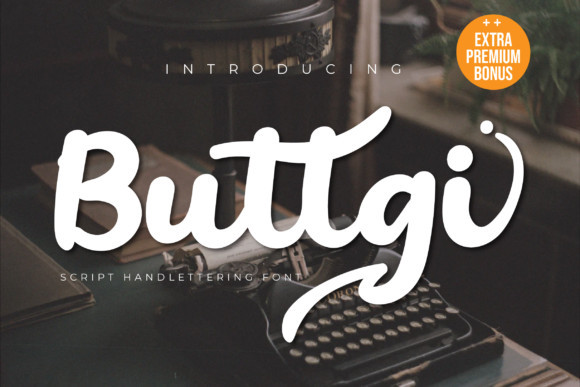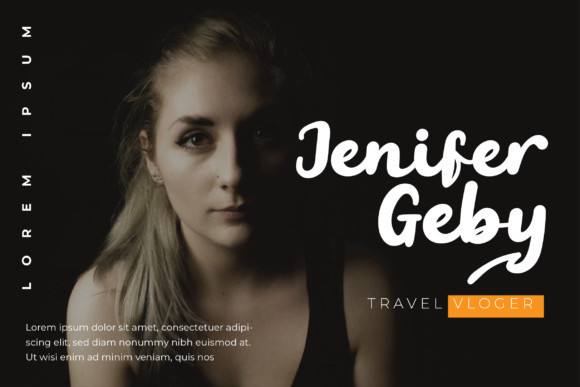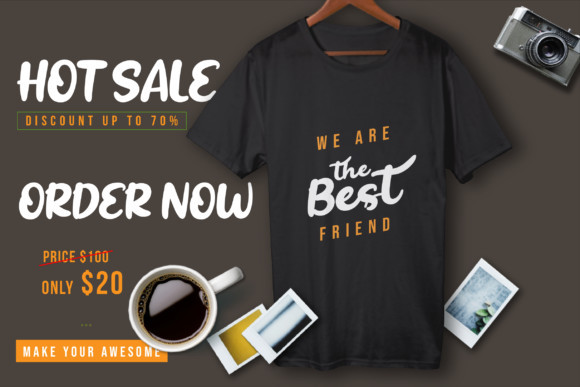
Buttgi Font
Buttgi is a flowing, thick lettered handwritten font, created with original hand-drawn strokes. Defined by a relaxed and elegant feel, as well as a beautiful typographic harmony, Buttgi is the perfect choice for each of your creative ideas!